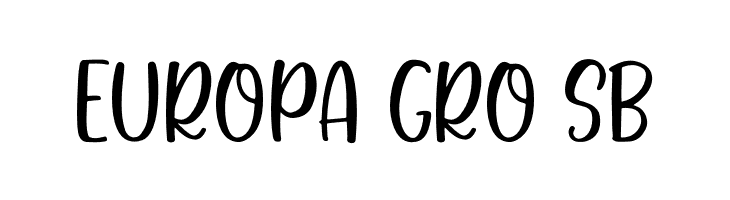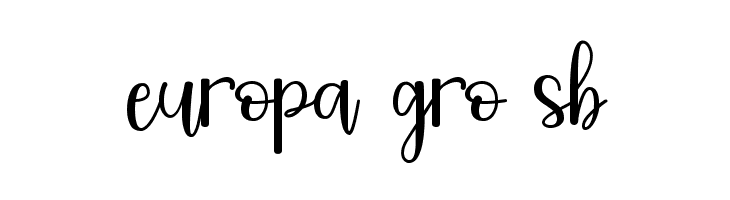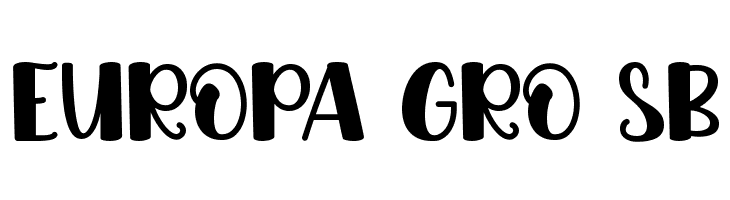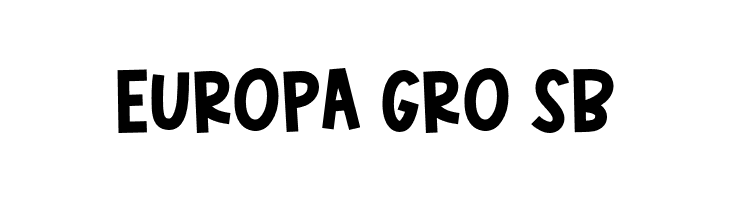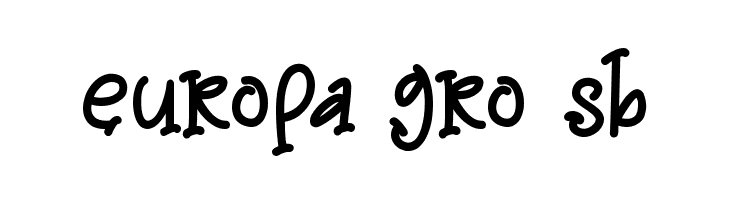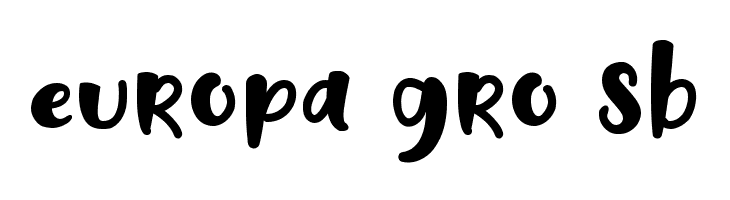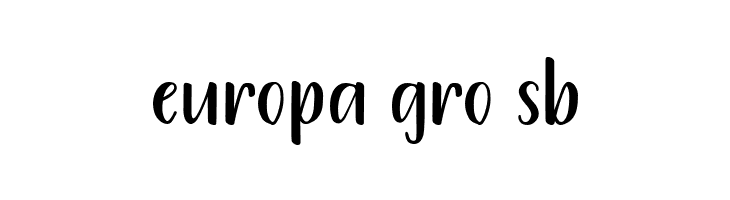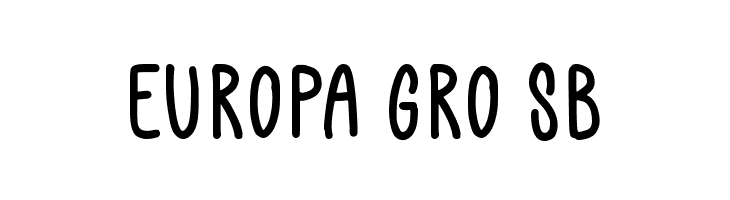
A playful, handwritten font with smooth lines and a casual style.
A playful, whimsical font combining script and sans-serif elements.
A playful, whimsical font with tall, narrow letters and a modern artistic flair.
A playful, bold font with heart-shaped cutouts, perfect for decorative use.
A playful, hand-drawn font with bold, quirky characters.
A playful, summer-themed font with beach motifs and a casual, handwritten style.
A playful, handwritten-style font with smooth curves and a casual appearance.
A playful, handwritten font with rounded edges and consistent height.
A bold, jagged font with sharp, irregular edges for a dramatic effect.